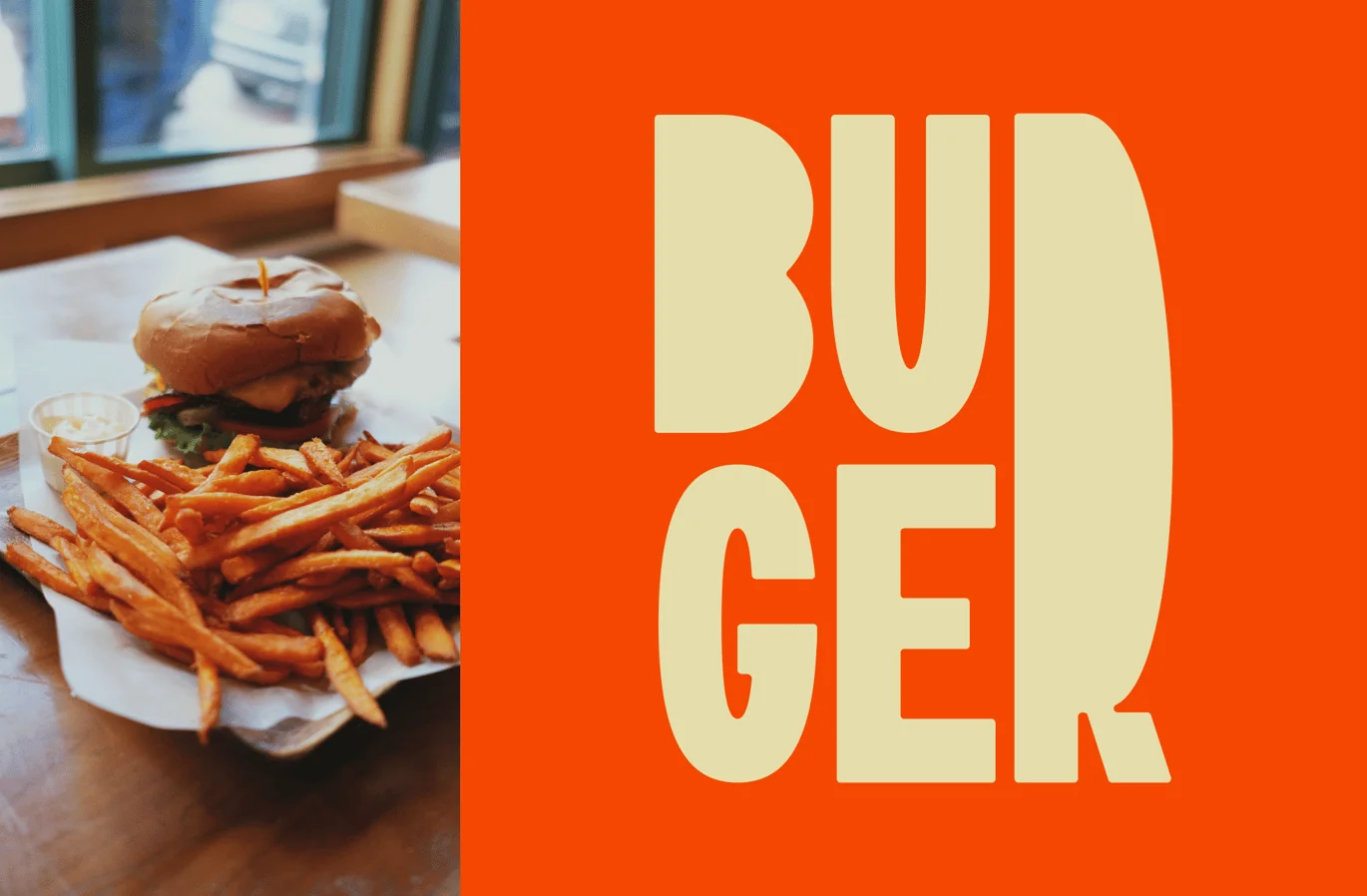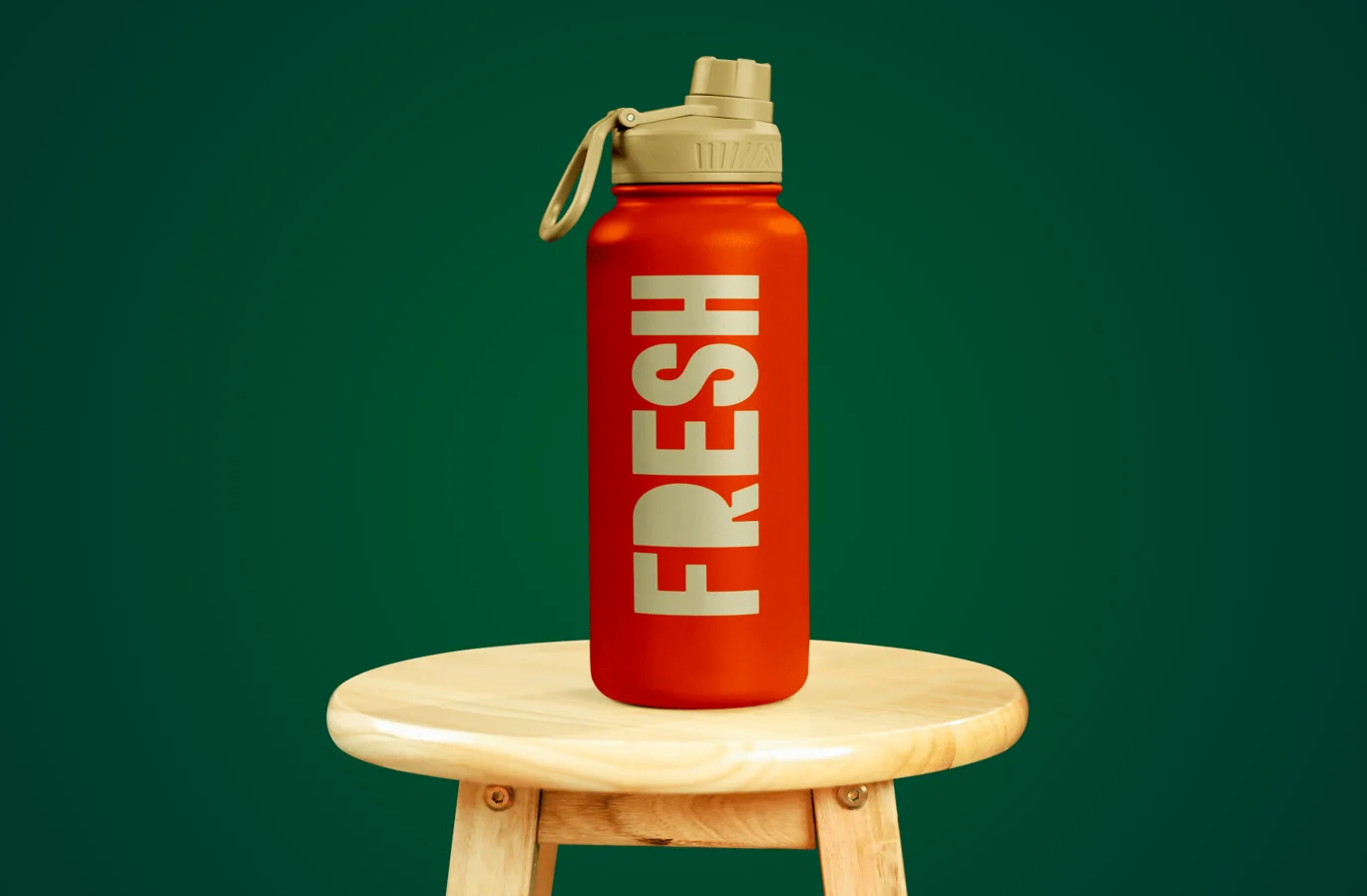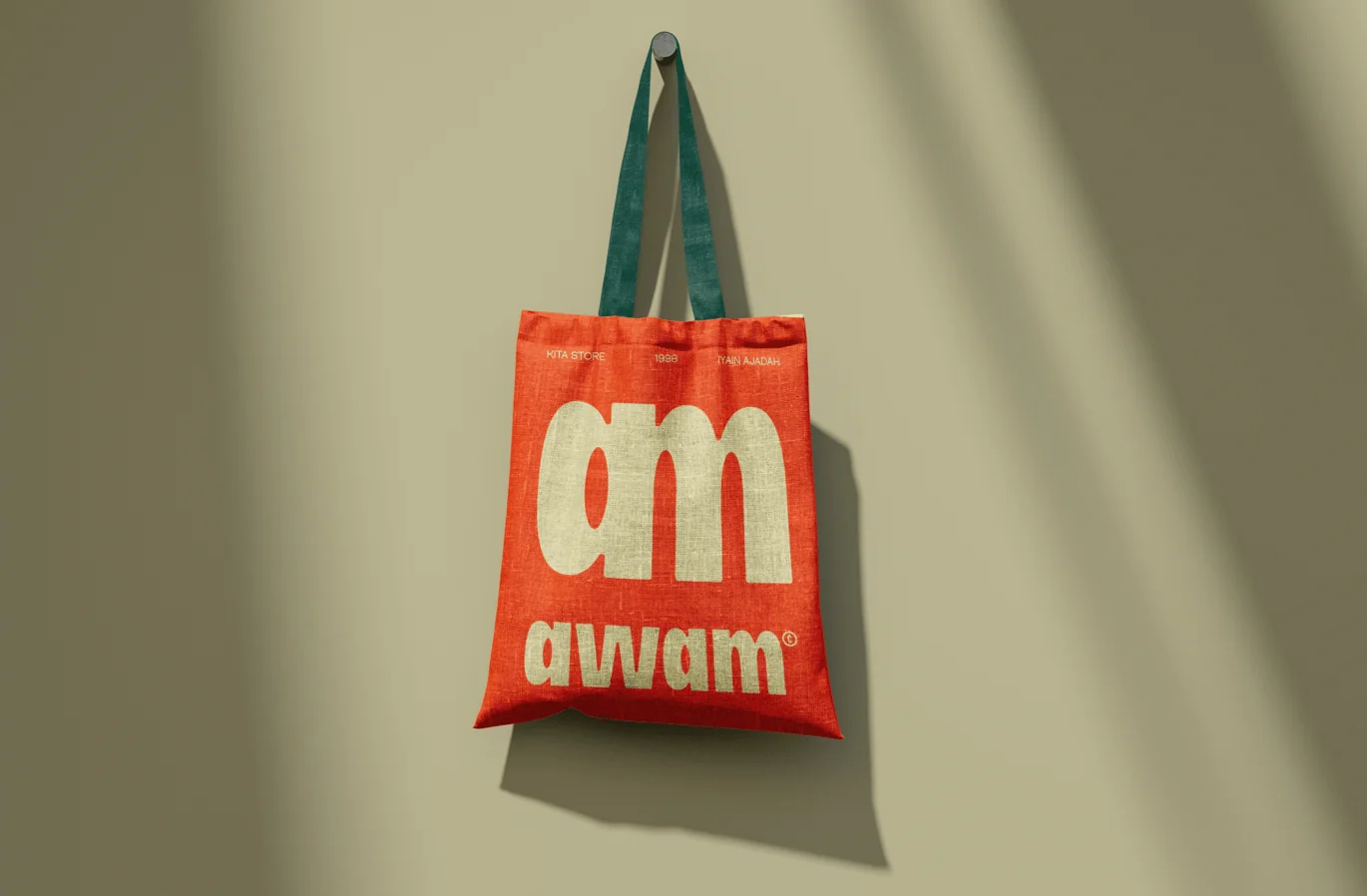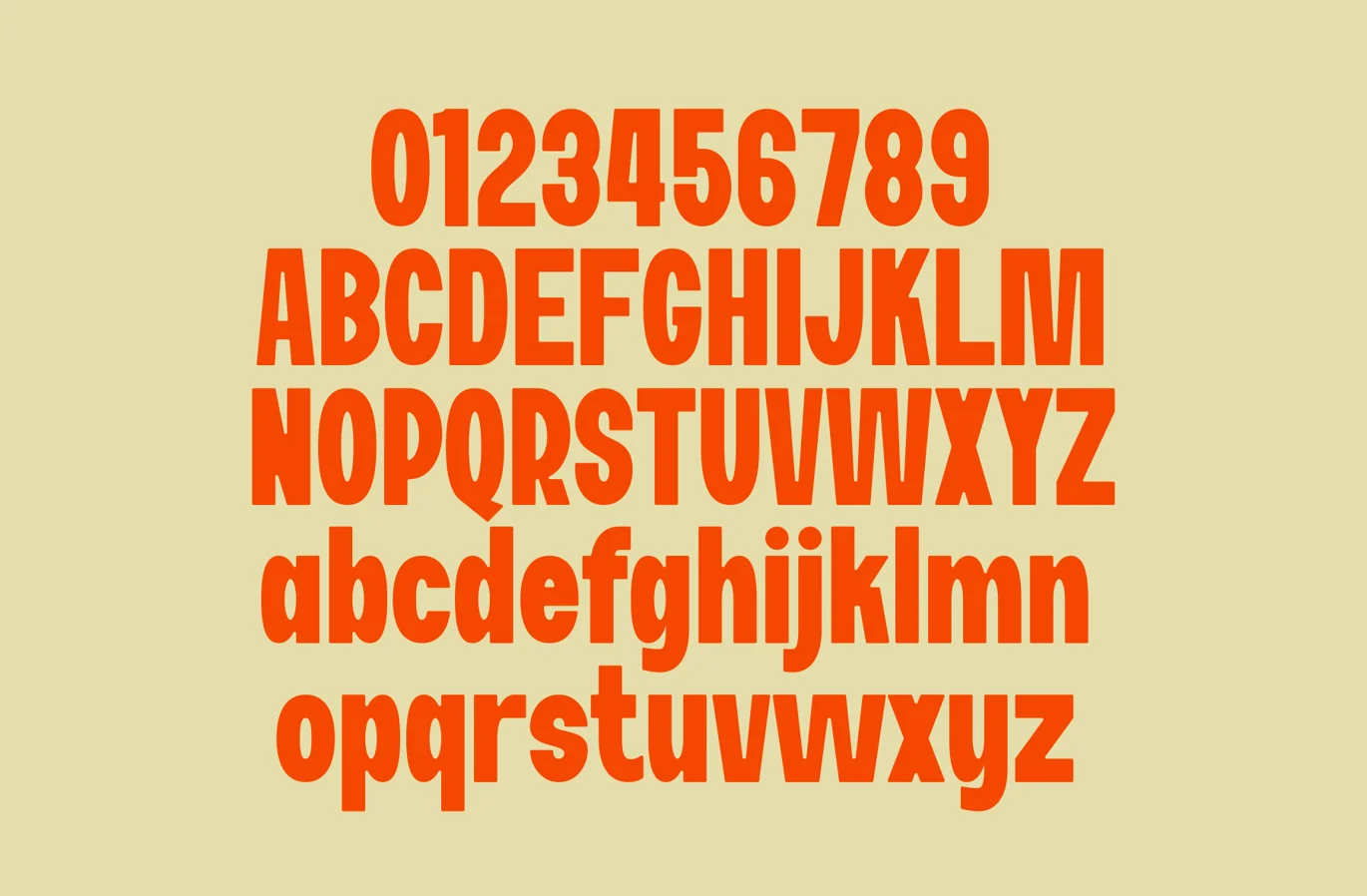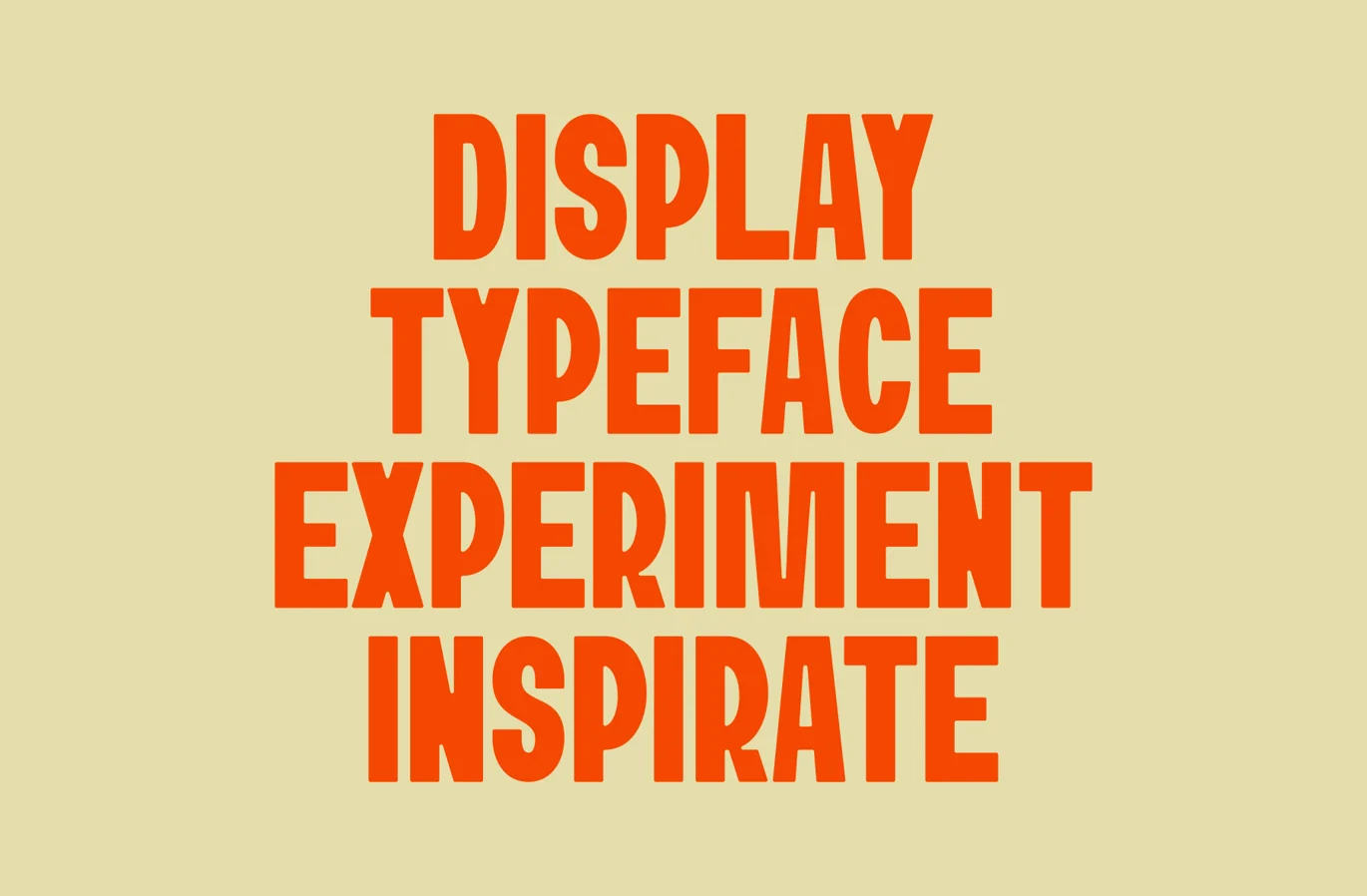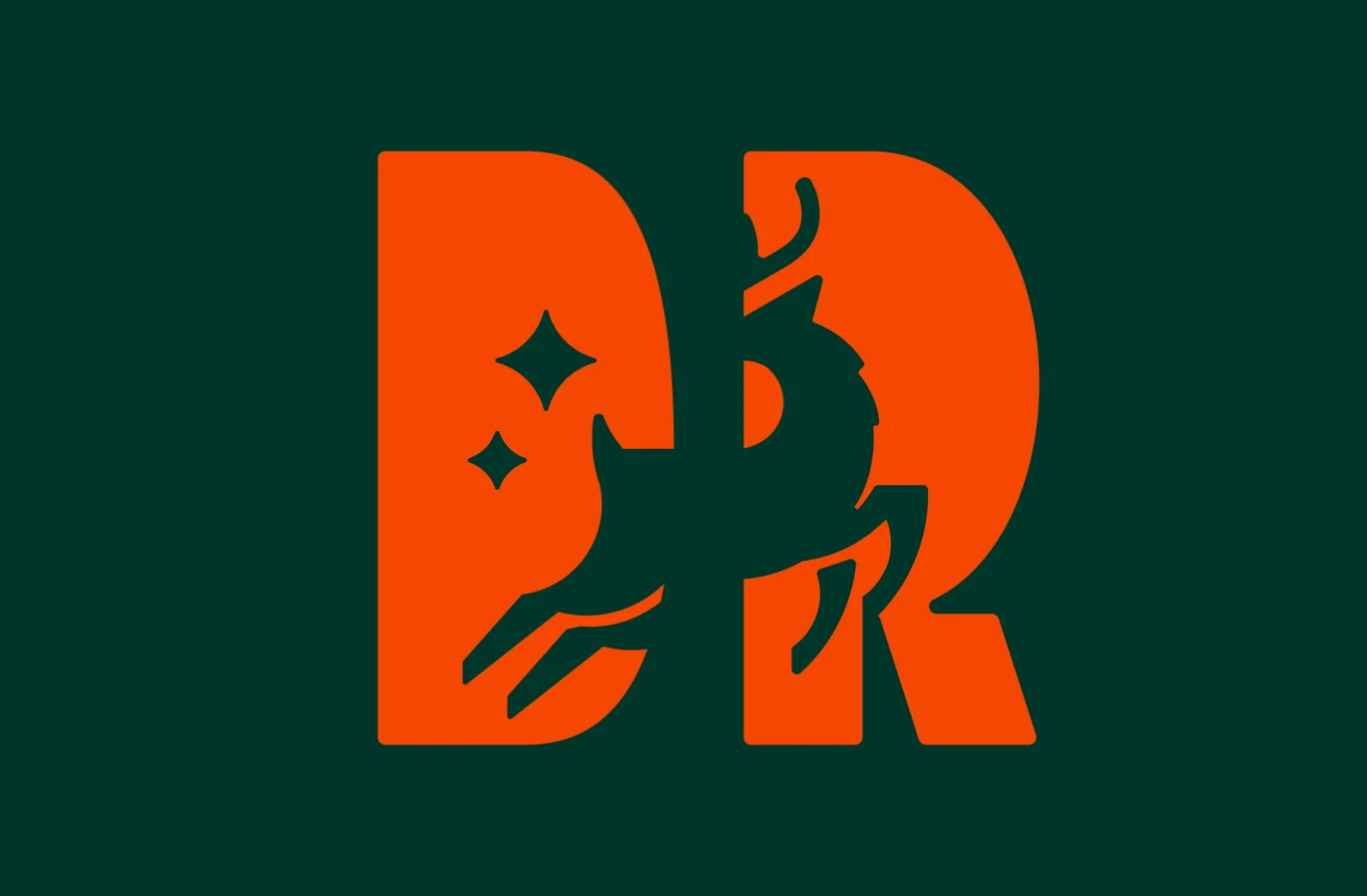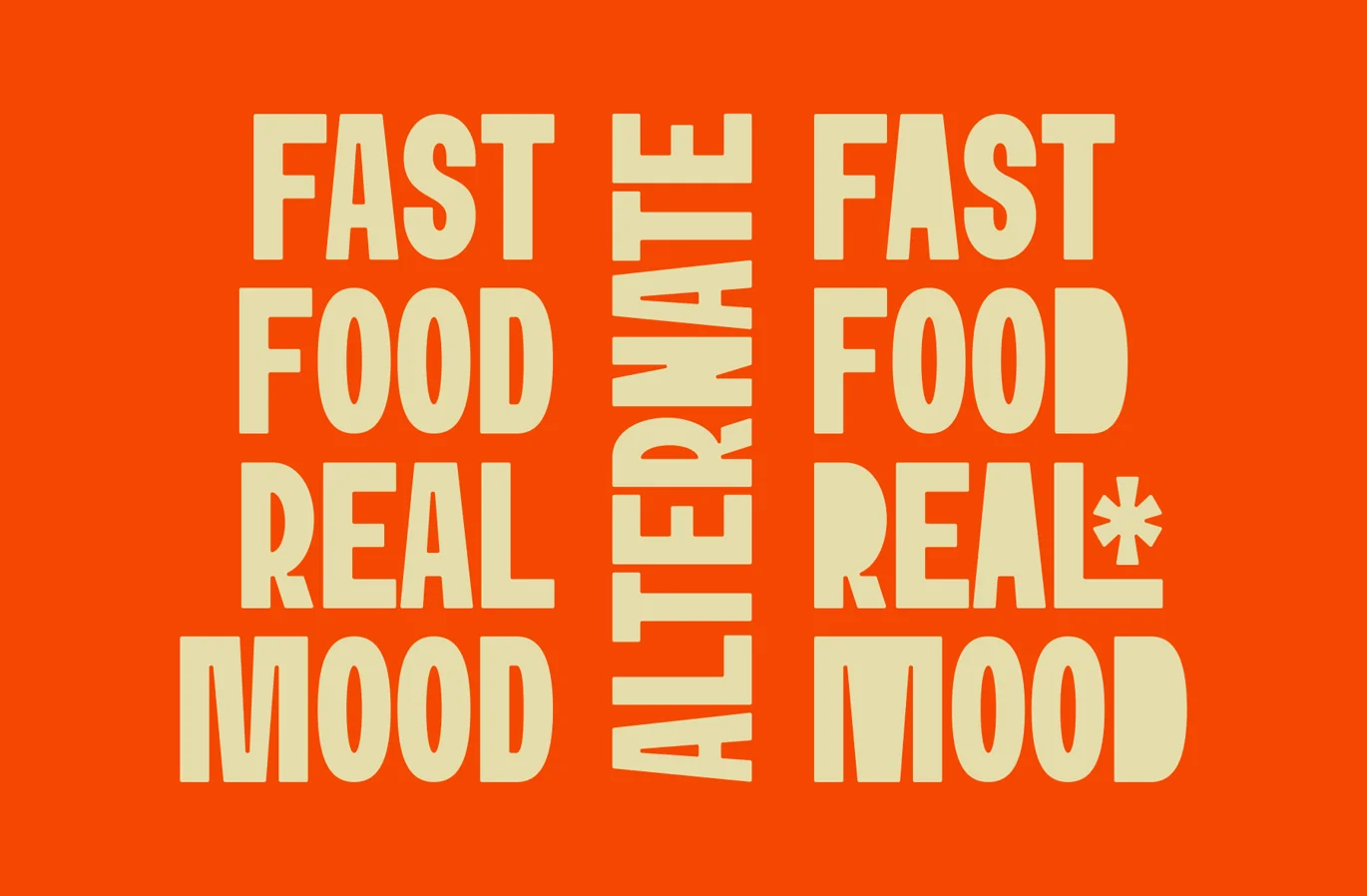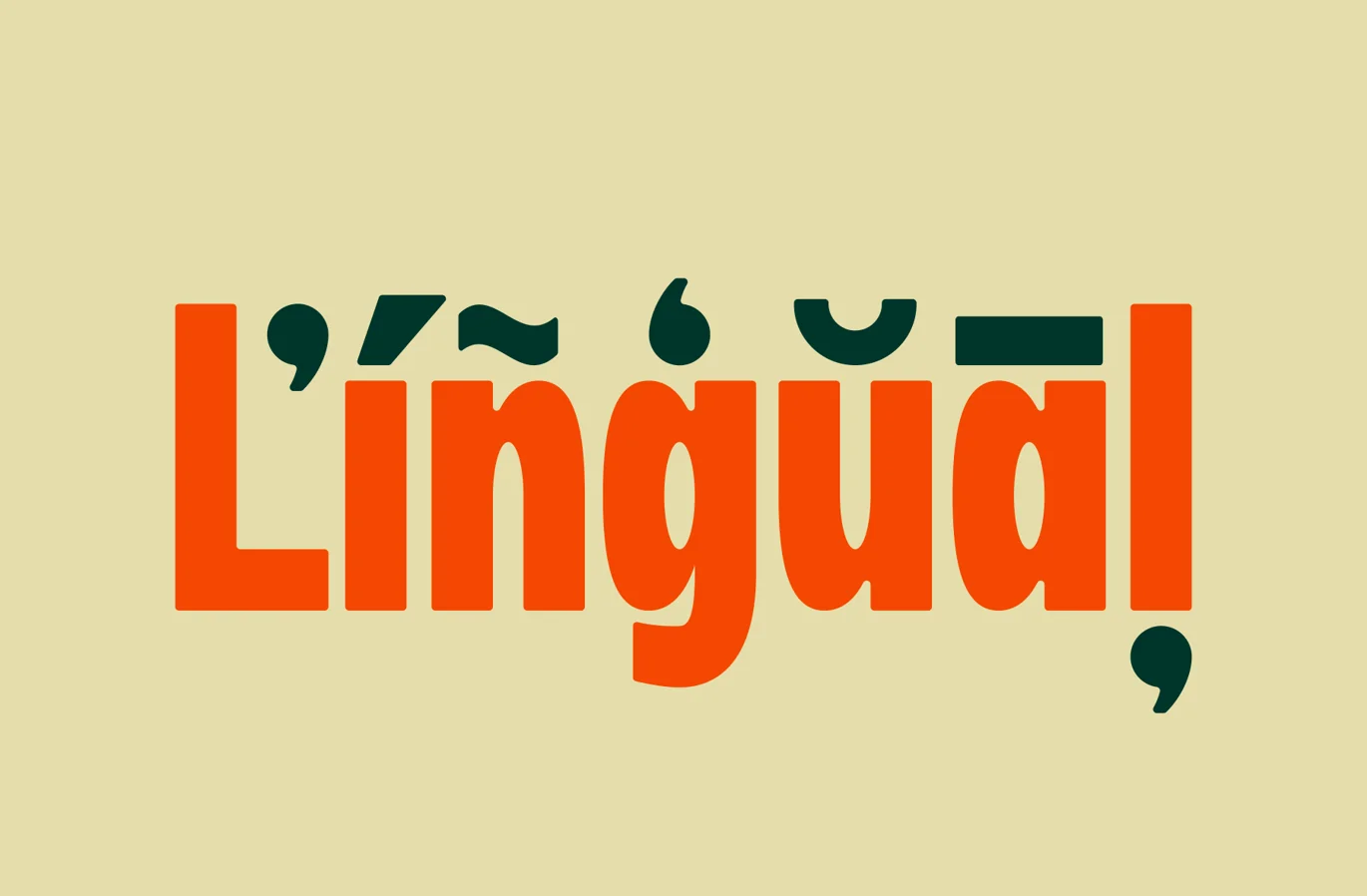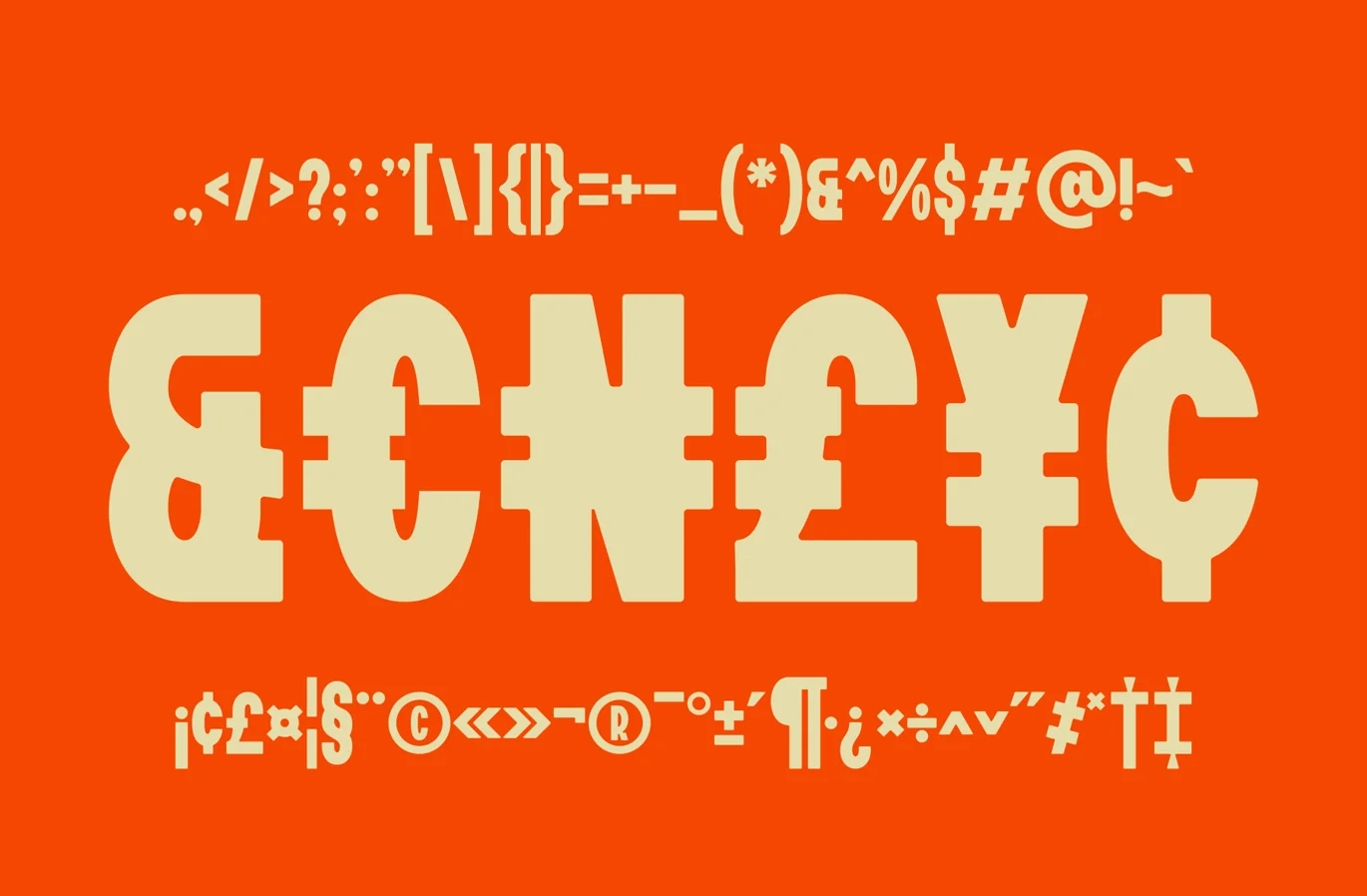
Lump – Display Sans Serif Font
Introducing Md Lump font is a sans-serif display with a semi-condensed structure, designed to create a bold visual impact. Its unique features include alternate forms where block-like shapes fill the negative space of certain characters, adding a distinctive and modern aesthetic. The letterforms feature rounded terminals and are thin at the ends, giving the font a balanced mix of softness and sharpness. This combination of geometric blocks with rounded ends creates a visually interesting and dynamic style, making it suitable for headlines, food, logos, and other products that attract attention.